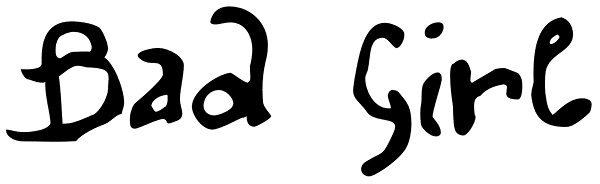
Bad Girl
Bad Girl was designed to appeal to the young consumer and the young-at-heart. While clearly feminine, it manages to combine a charming naïveté with in-your-face rebelliousness. The awkward, rather self-involved character shapes have a definite...
Bad Girl
Bad Girl Light